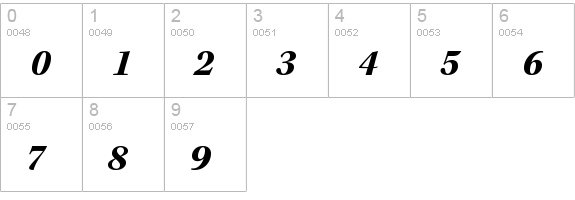
Kepler Std Bold Italic Font Details
Kepler Std Bold Italic is a strong, high-contrast, italic variant in the Kepler typeface family \xE2\x80\x94 well suited to headlines, attention-grabbing titles, and strong calls-to-action.
Kepler Std Bold Italic is a powerful and versatile font that effortlessly combines modernity with elegance. Its bold strokes exude confidence and strength, while the subtle italic slant adds a touch of sophistication. This font is perfect for making a statement, whether it's in a headline, logo, or any design element that needs to grab attention. One of the best things about Kepler Std Bold Italic is that it is available for free. You can easily download this font from FontsMarket.com, a renowned online platform for font enthusiasts. By making this font freely accessible, it allows designers, creatives, and typophiles to experiment and explore its potential without any financial restrictions. Kepler Std Bold Italic features a harmonious blend of curves and angles, resulting in a visually striking and balanced appearance. Each character has been meticulously crafted, ensuring legibility and clarity even at smaller sizes. The bold weight adds impact to any design, while the italic style adds a touch of flair and personality. Whether you're working on a print project, a website design, or a branding endeavor, Kepler Std Bold Italic is a font that can elevate your work to new heights. Its versatility makes it suitable for a wide range of applications, from fashion and beauty to technology and finance. So, if you're looking for a bold and italic font that is both visually captivating and freely available, look no further than Kepler Std Bold Italic. Visit FontsMarket.com today to download this font and unlock a world of possibilities for your next design project.